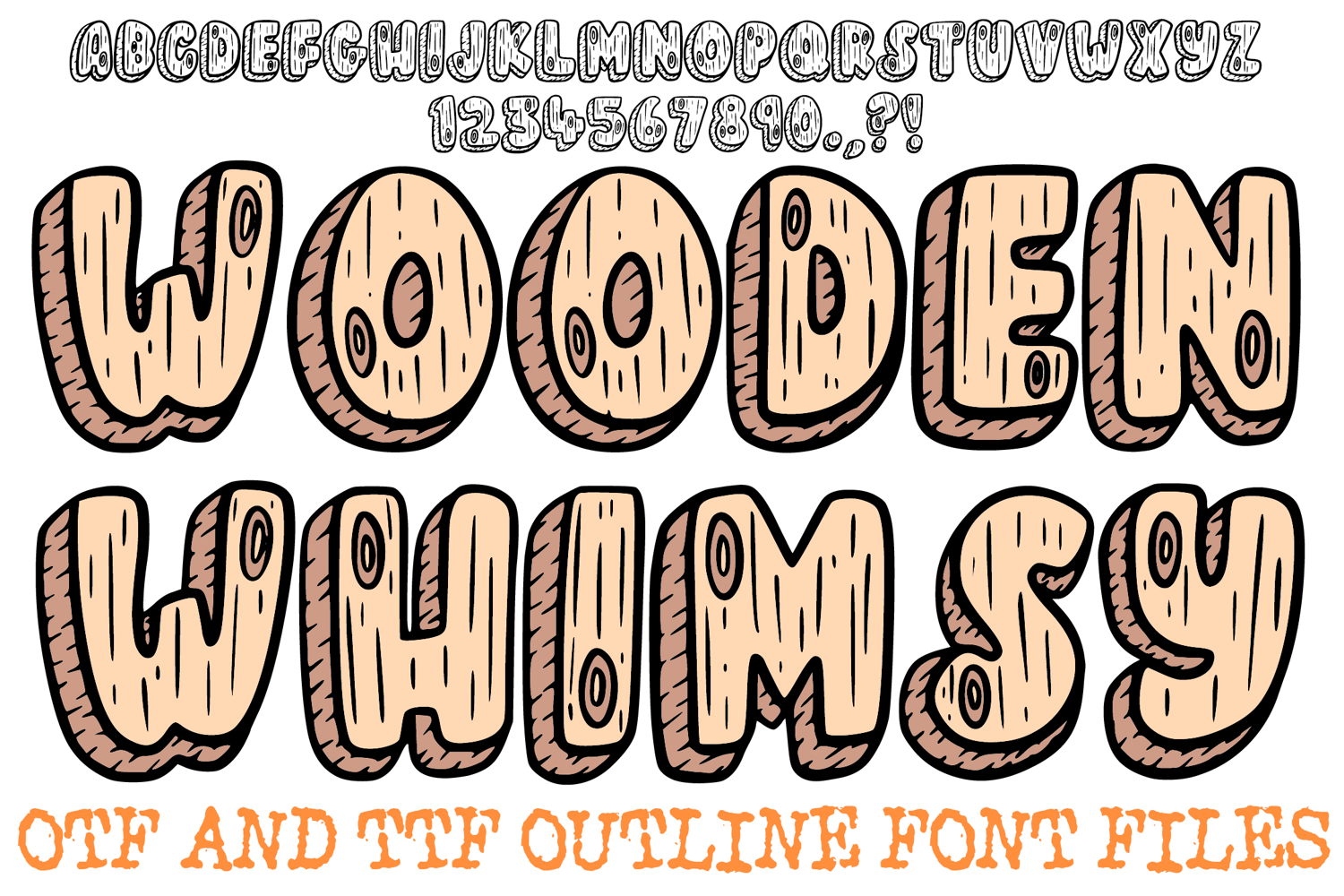
Wooden Whimsy Doodle Font Lettering Wood Texture Log ABC OTF
Bring the rustic charm of the forest to your digital canvas with the Wooden Whimsy Font! This hand-drawn display alphabet features chunky, 3D letterforms meticulously detailed with organic woodgrain textures, swirling knots, and etched "bark" lines. It is the perfect choice for woodland-themed nursery decor, artisan woodworking branding, outdoor adventure posters, and "cottagecore" social media graphics.
The "fairytale forest" aesthetic blends a rugged, natural feel with a playful, sketchy silhouette, making it highly versatile for both professional logos and DIY craft projects. Whether you’re designing a sign for a mountain cabin or creating stickers for a nature journal, the Wooden Whimsy Font adds an authentic, hand-carved touch to every word.
Why This Font is Naturally Better:
Intricate Woodgrain Details: Each character is filled with unique, hand-drawn rings and grain patterns for a realistic timber look.
Bold 3D Block Style: Thick, shadowed edges give the letters a heavy, physical presence that pops off the page.
Artisan Sketchy Outline: The slightly uneven, "doodled" borders maintain a warm, human feel rather than a cold, digital one.